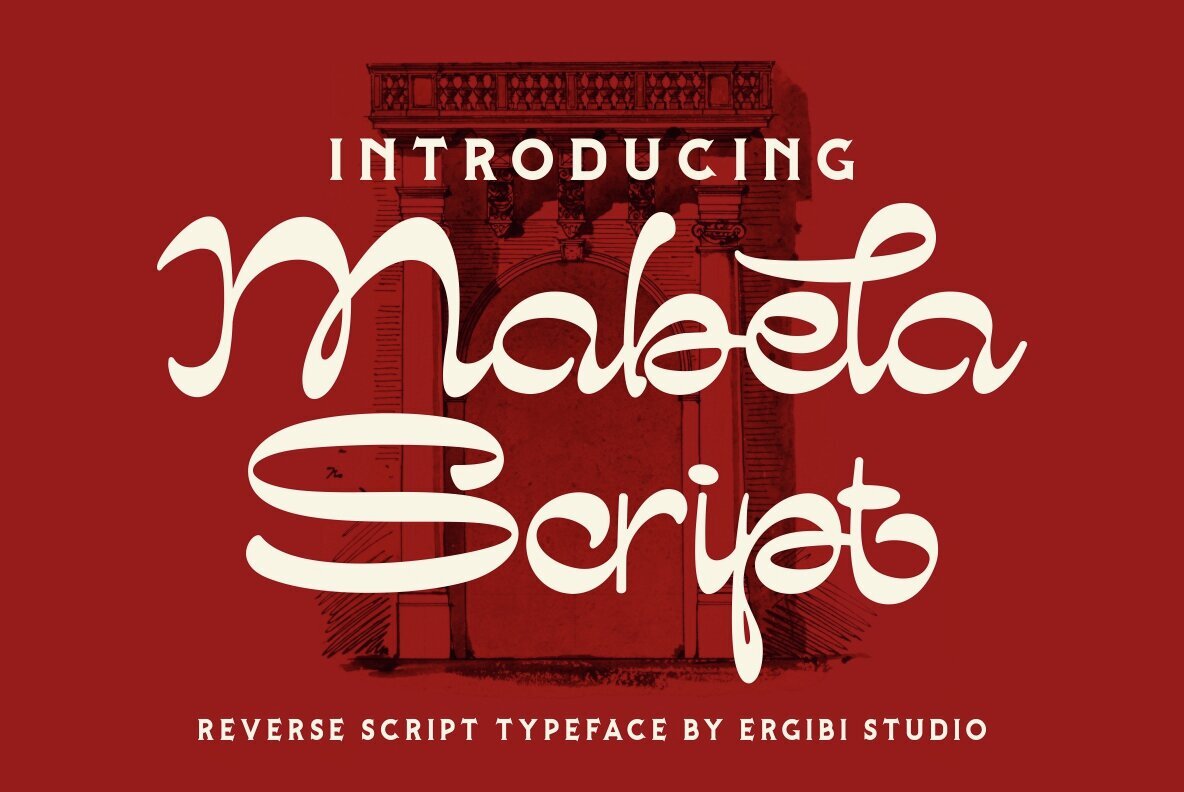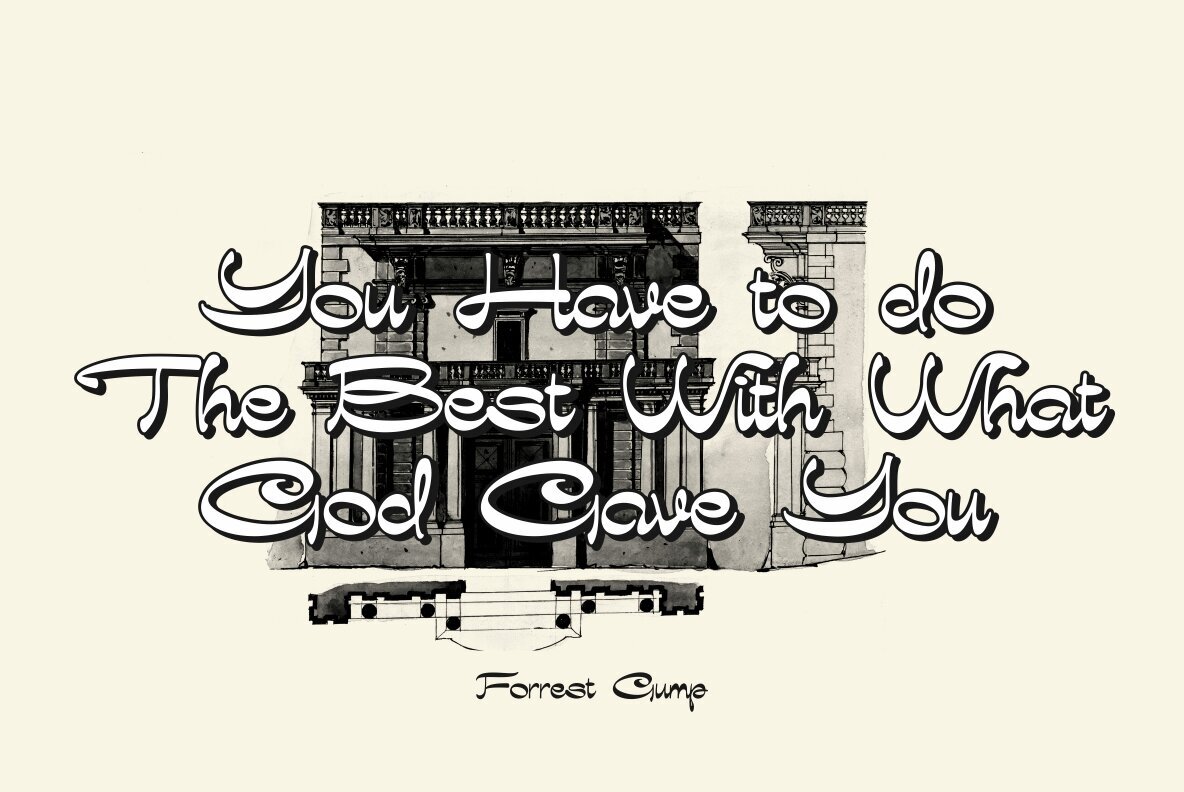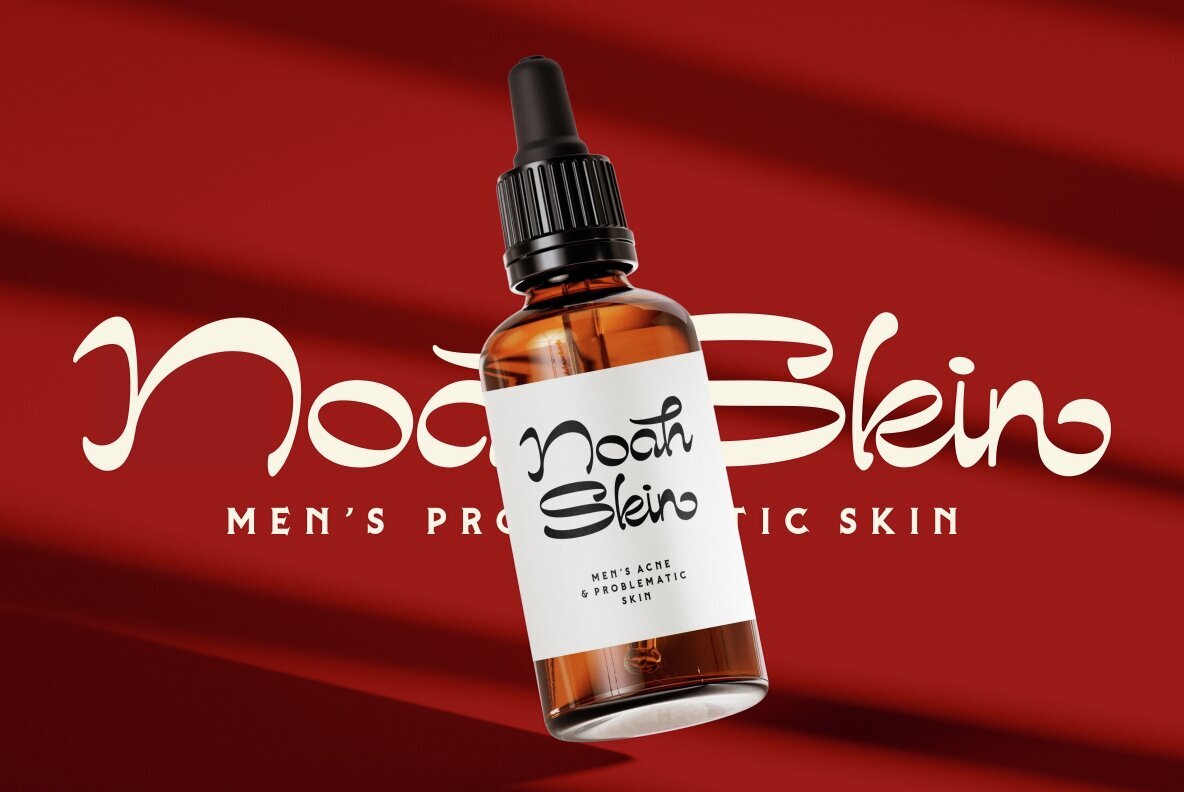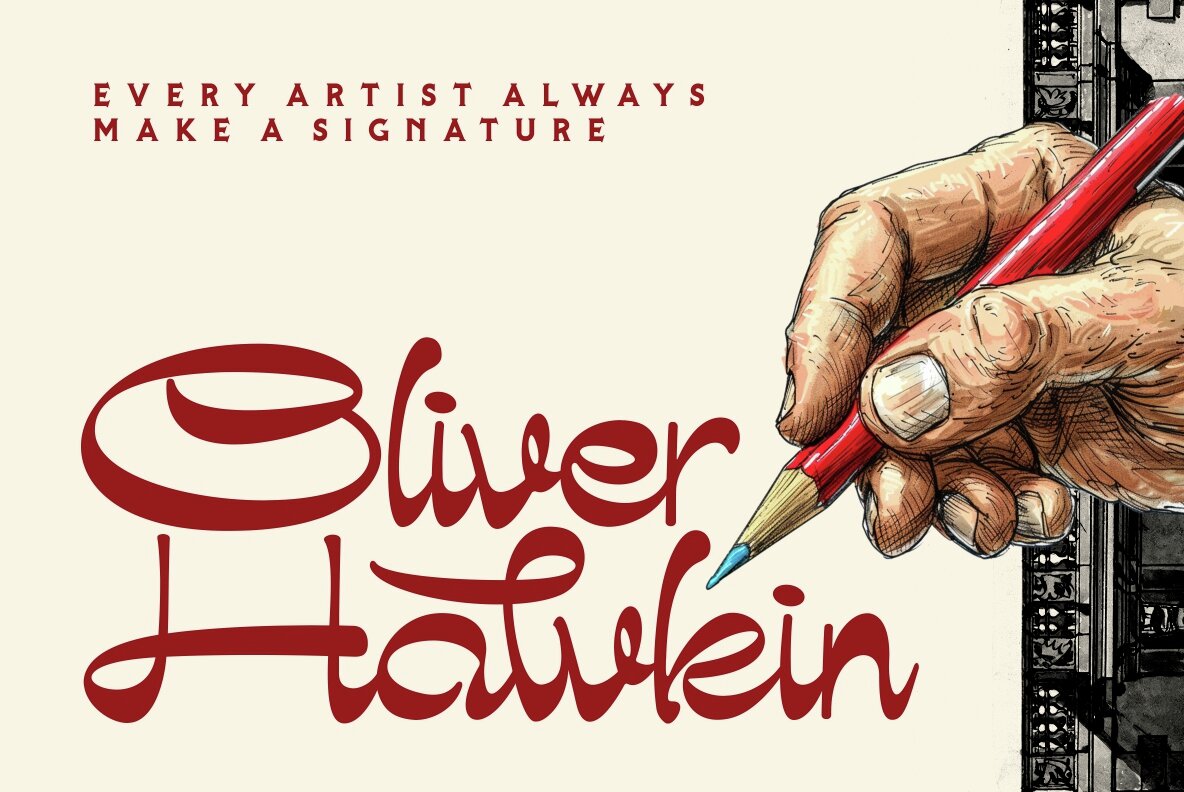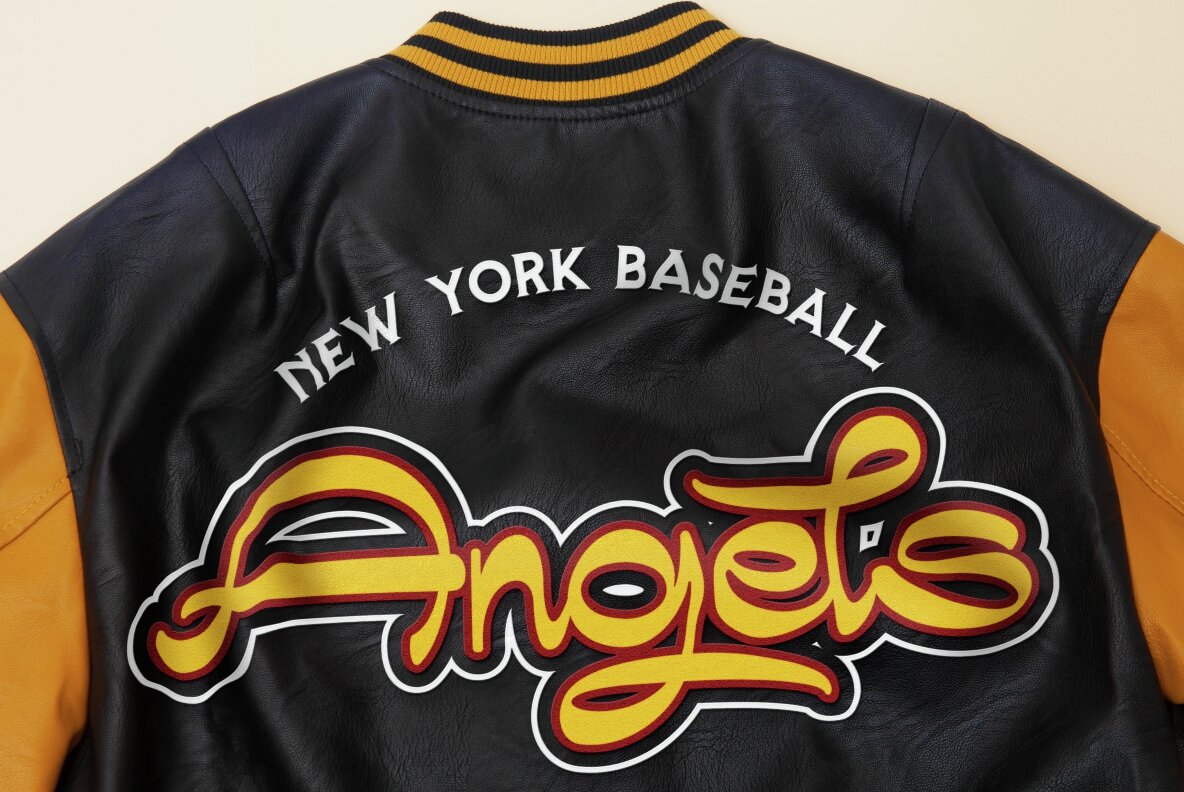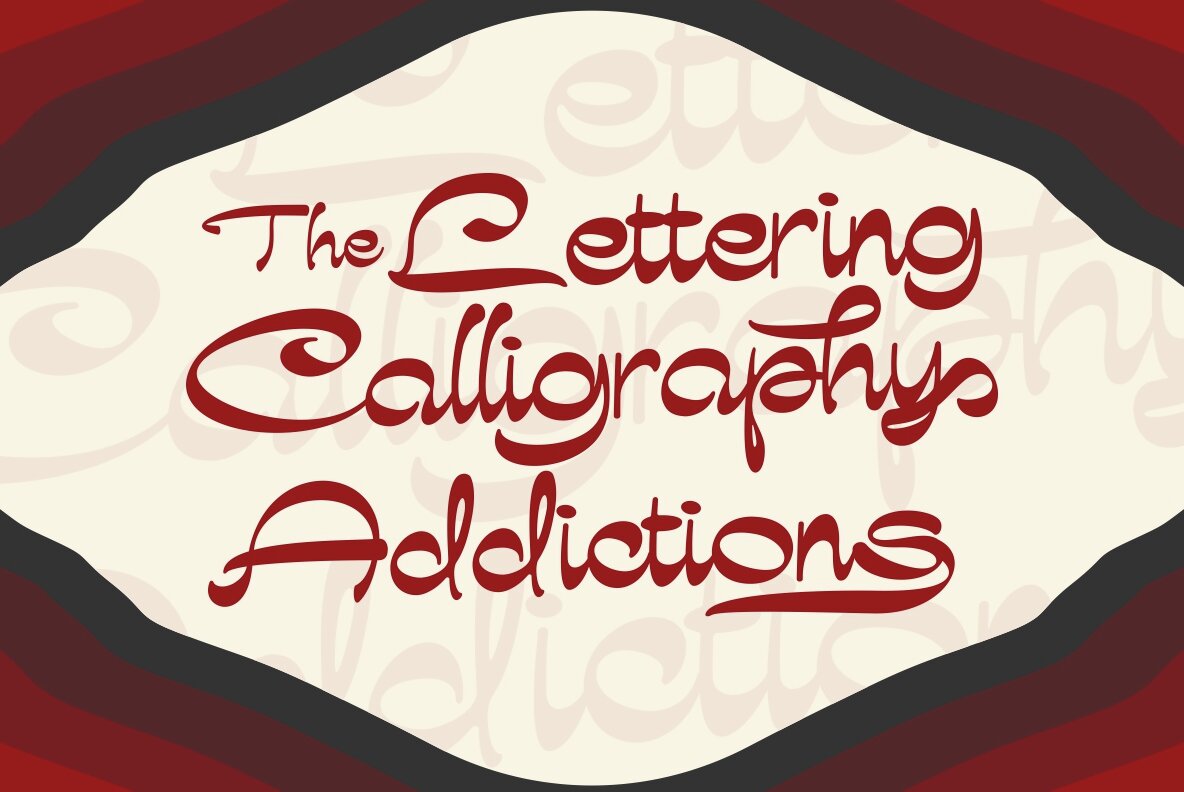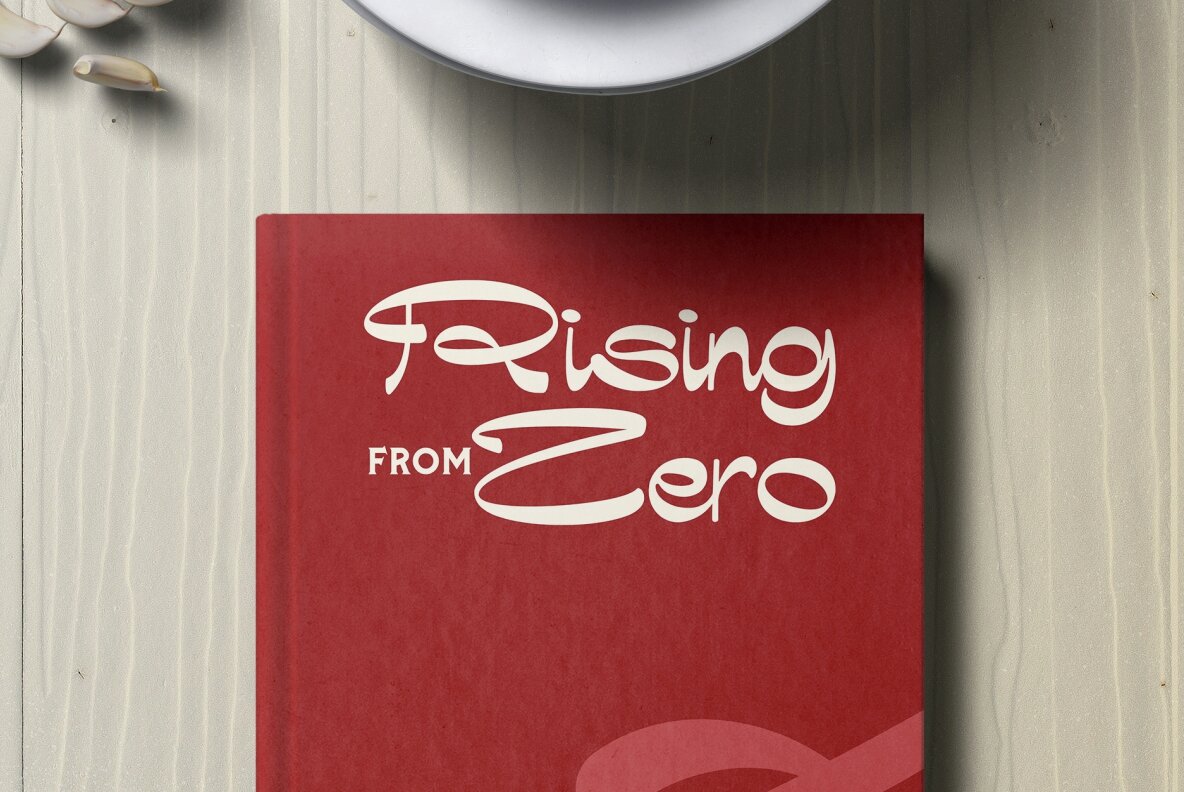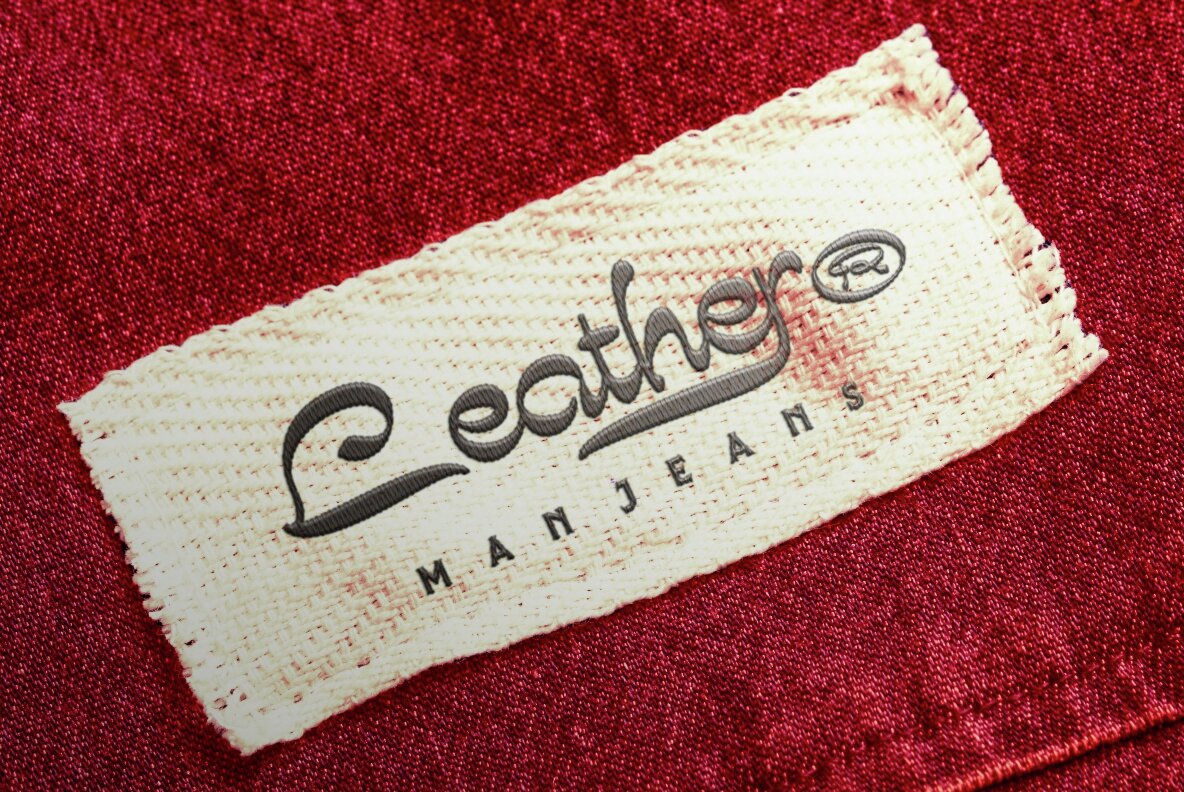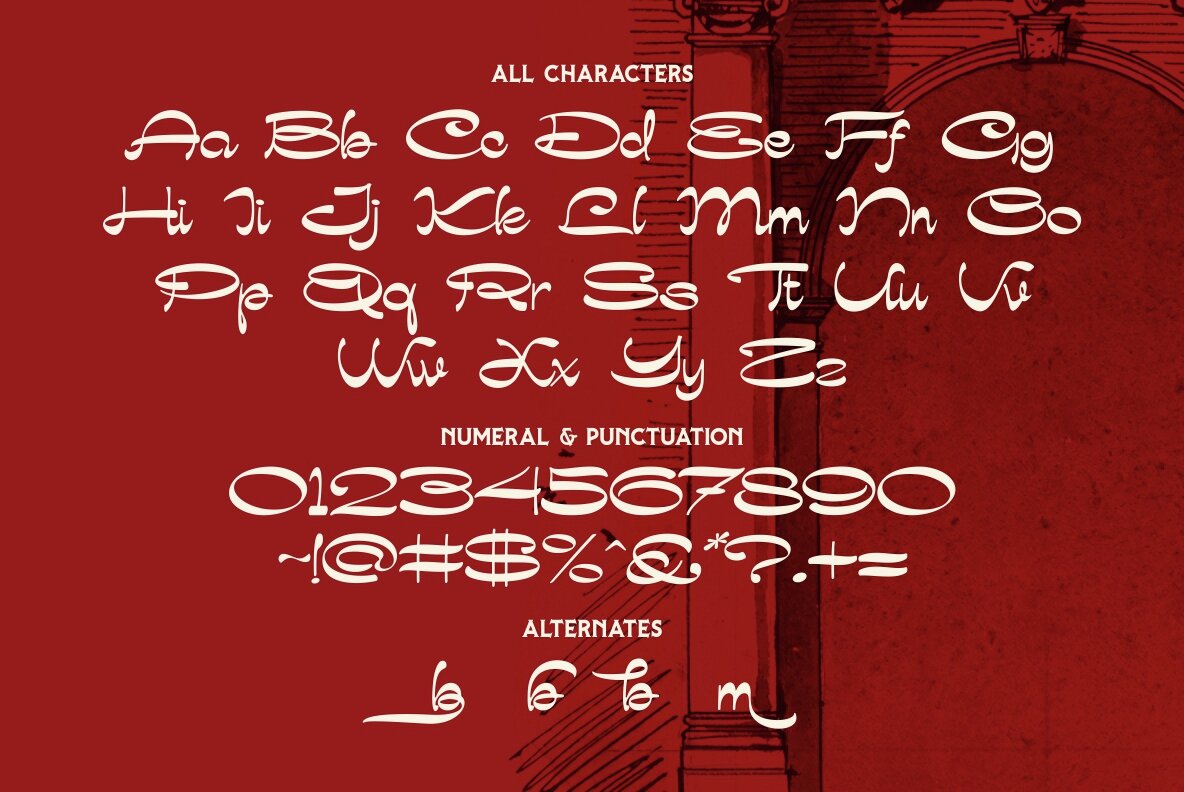
Mabela Font
Mabela Script
Mabela Script is a refined fusion of classic and modern elements, offering a sophisticated design that exudes elegance. With its smooth strokes, dynamic curves, and meticulous details, this font is perfect for projects requiring a luxurious touch. It is especially well-suited for luxury branding, logos, wedding invitations, and product packaging, providing a unique and captivating aesthetic.
This font’s harmonious balance between beauty and professionalism ensures that each letter captures attention, making your designs unforgettable. Key features include standard glyphs, ligatures, and support for international accents. Mabela Script is compatible with both PC and Mac, and ensures a straightforward installation process.